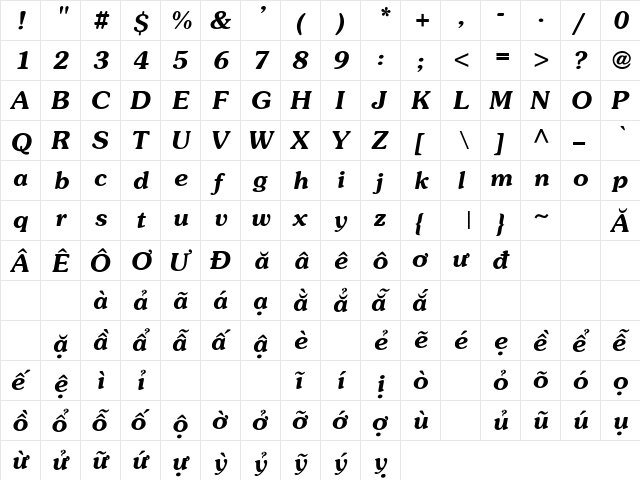
.VnSouthern Bold Italic
Design Context for .VnSouthern Typeface
.VnSouthern is a composed and adaptable typeface that performs quietly and consistently across a wide range of design contexts. Its italic angle brings a sense of urgency and motion to the letterforms. Its bold stroke weight gives it real presence on the page.
Pro Tip: Try .VnSouthern for annotation and caption copy alongside an upright companion — the contrast in angle creates a dynamic but ordered typographic system.